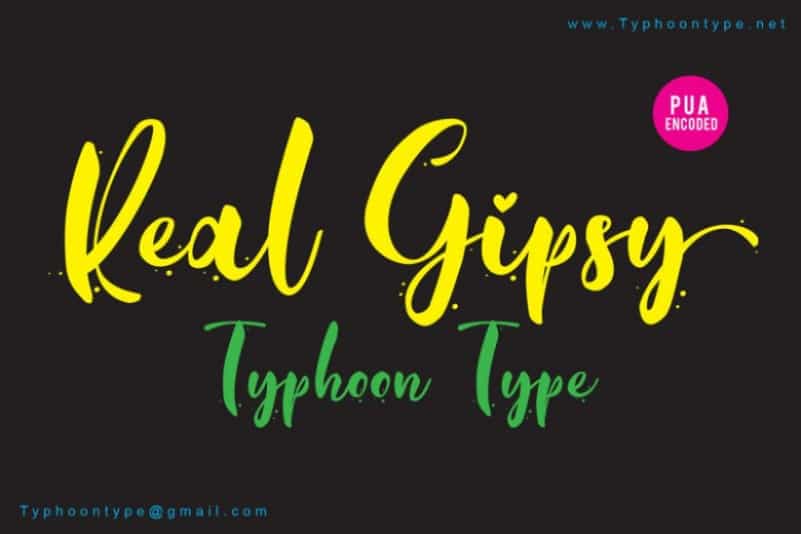
Discover Real Gipsy Script Font, part of the Brush Handwritten collection—a versatile and unique font perfect for adding a personal touch to your projects. Download it for free and enjoy crafting designs with style, from invitations to social media posts. This font is available exclusively for personal use, giving you the freedom to create without limits. Unlock your creativity with Real Gipsy Script Font today!
Real Gipsy This Font can be used for logos, name tags, advertising, product labeling, clothing, social media, and greeting cards.